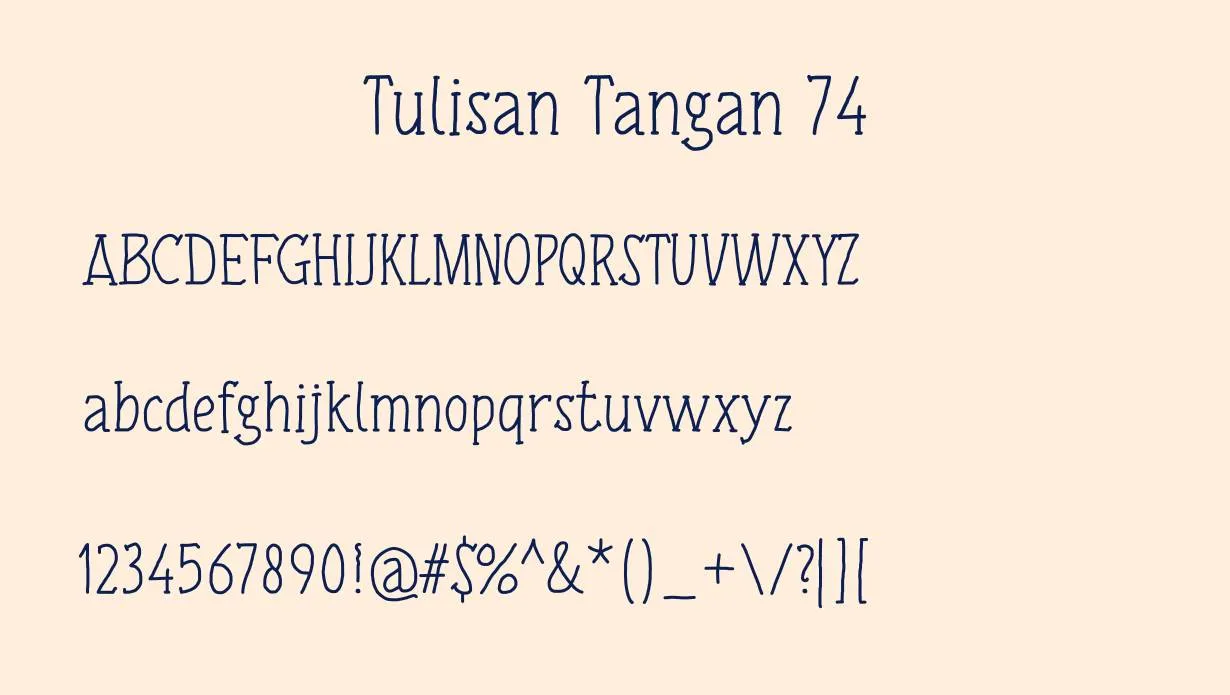
Tulisan Tangan 74 Font is a script typeface that captures the look of handwritten text. With its natural and flowing characters, this font is often used in projects that require a personal and authentic feel, such as journal covers, invitations, or any design that aims to convey a sense of handwriting.
- Tulisan Tangan 74 Regular
- Tulisan Tangan 74 Bold
- Tulisan Tangan 74 Italic
| Name | Tulisan Tangan 74 Font |
| Designer | 7NTypes |
| Style | Handwritten |